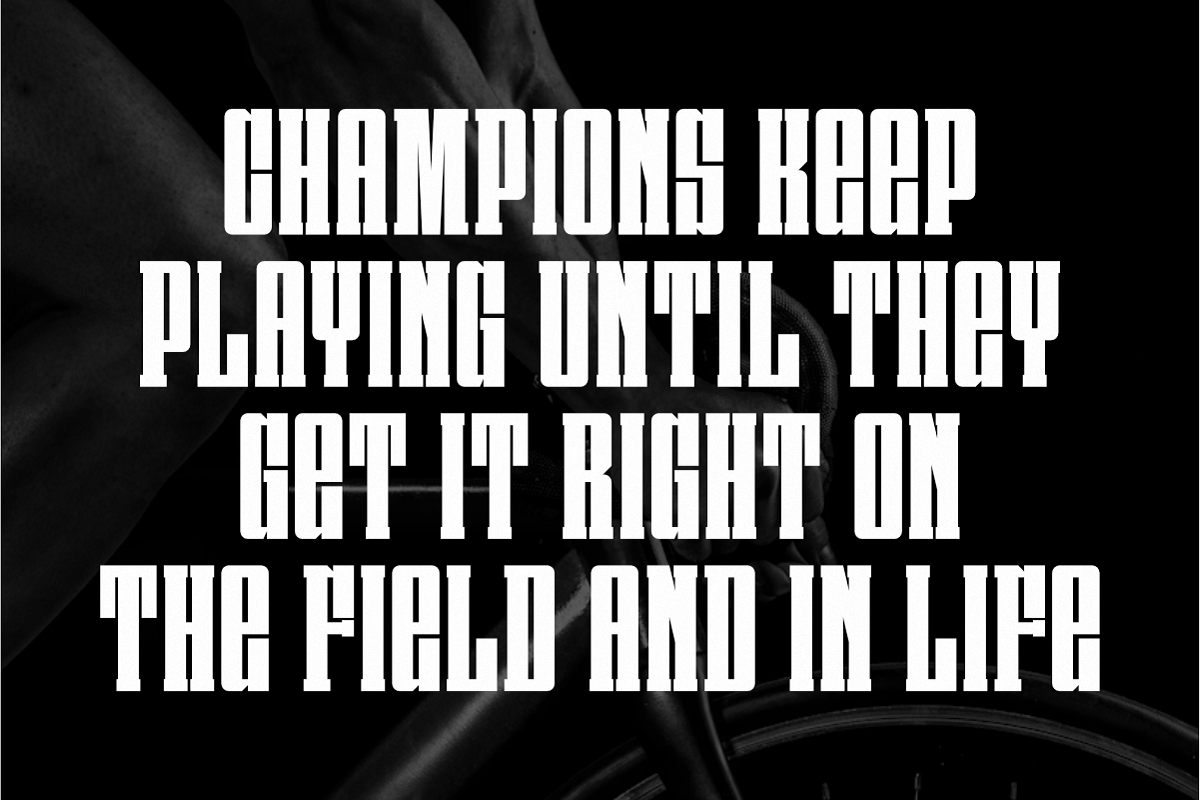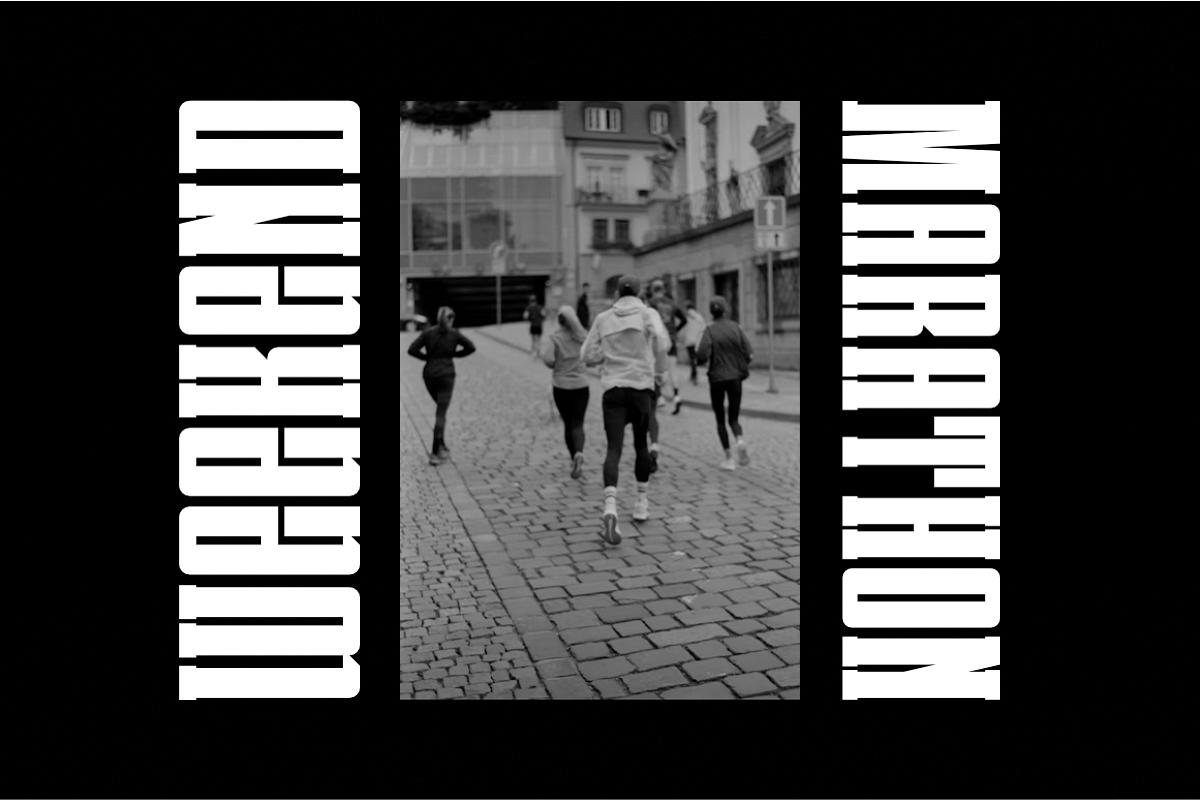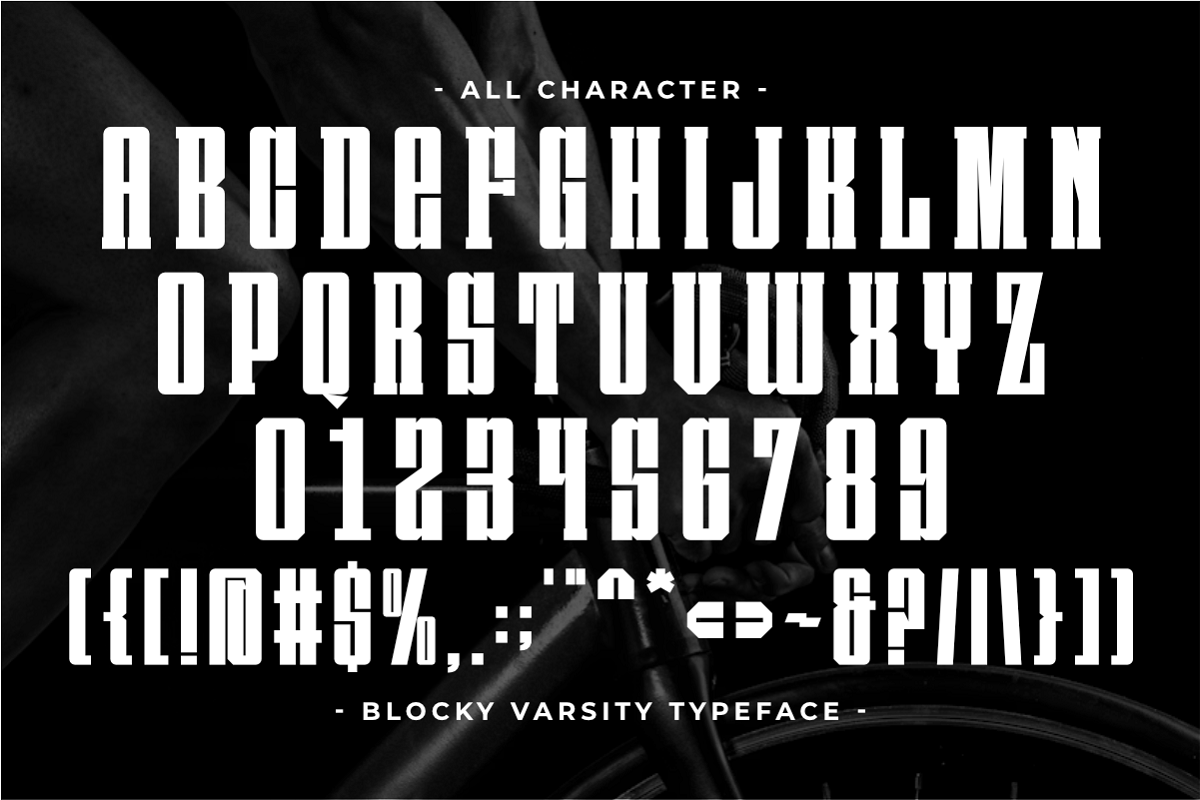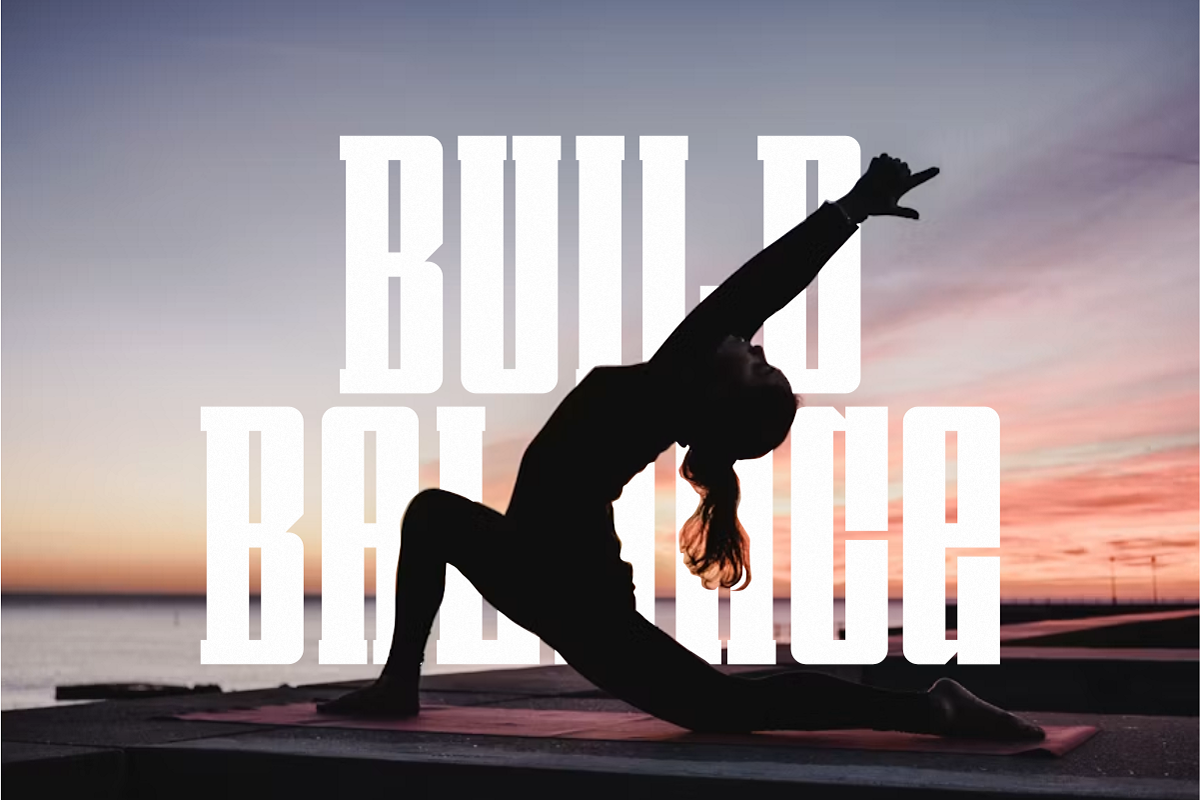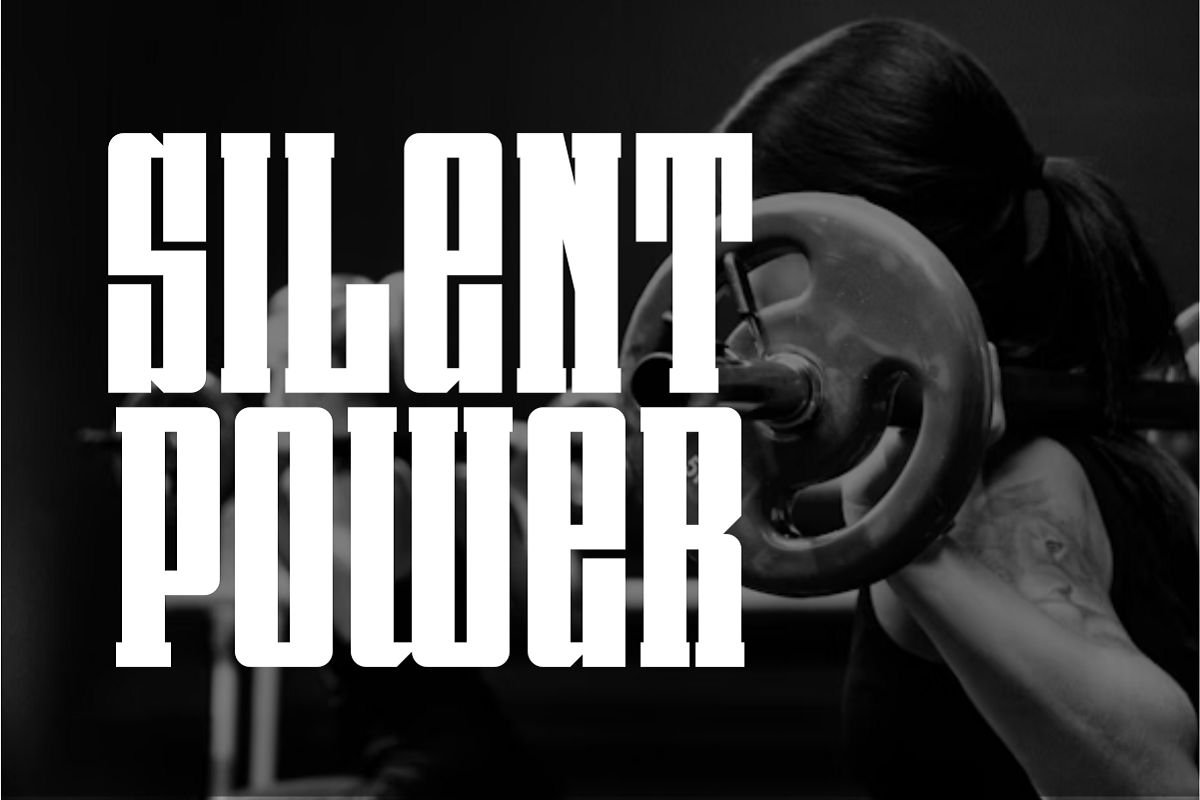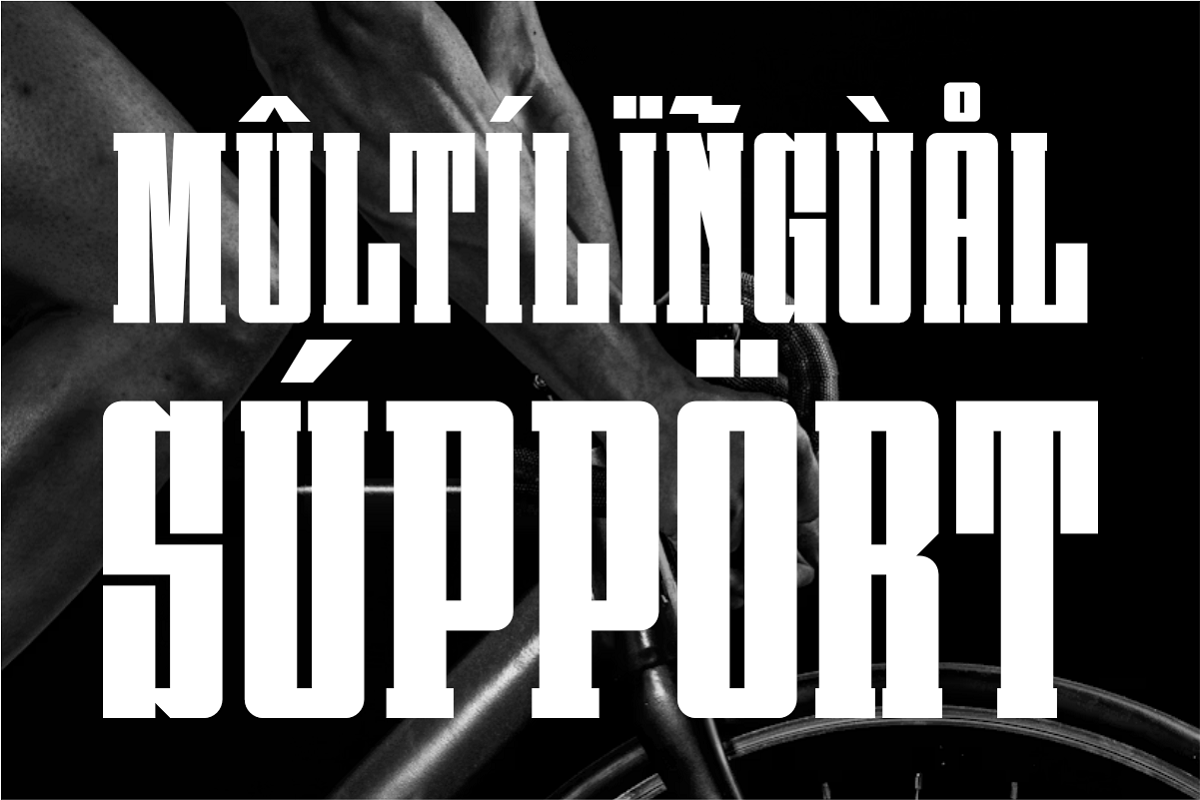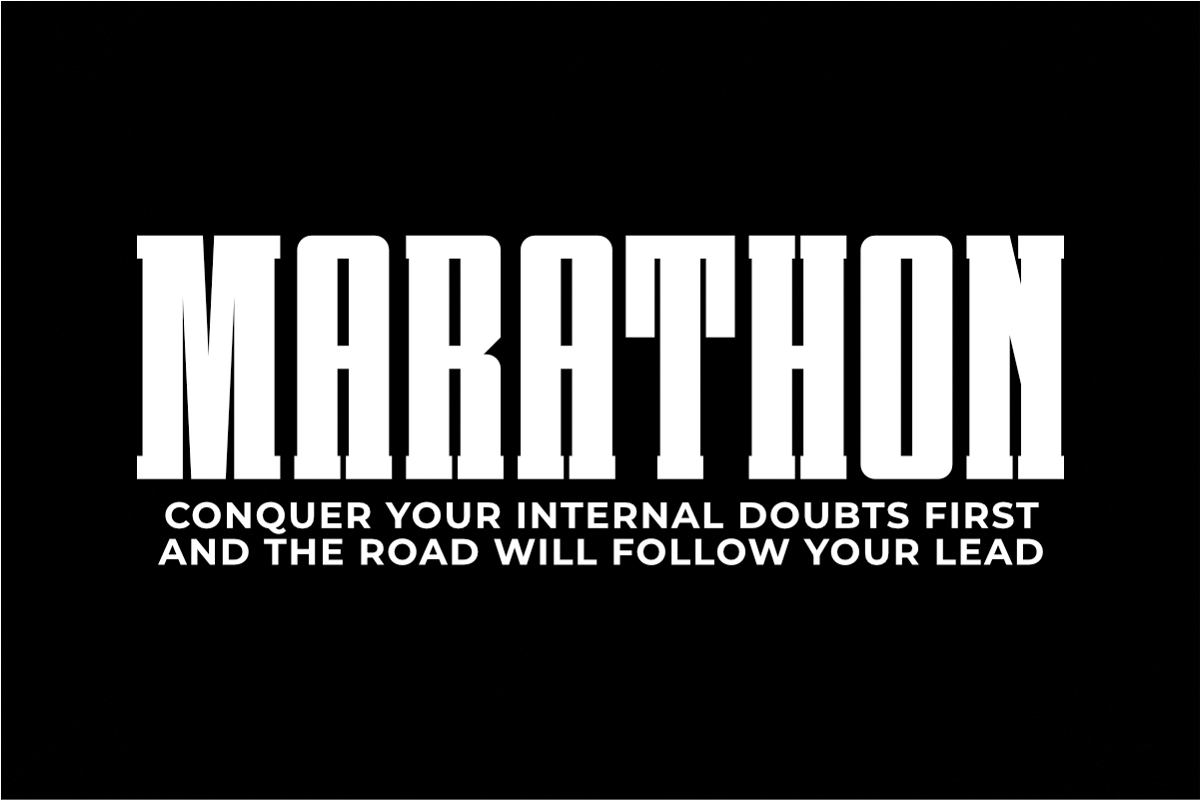
Blocky Varsity - Condensed Slab
Blocky Varsity is a high-octane Condensed Slab Serif font engineered for maximum strength and competitive edge. Featuring sharp, bold block serifs and an ultra-tall condensed typeface structure, this all-caps font is the ultimate choice for sports branding, gym apparel, university varsity jerseys, and athletic team logos. Its heavy visual weight and compact geometric design deliver a commanding and authoritative presence, making it perfect for high-impact fitness posters, custom merchandise, streetwear lines, and powerful digital headlines.